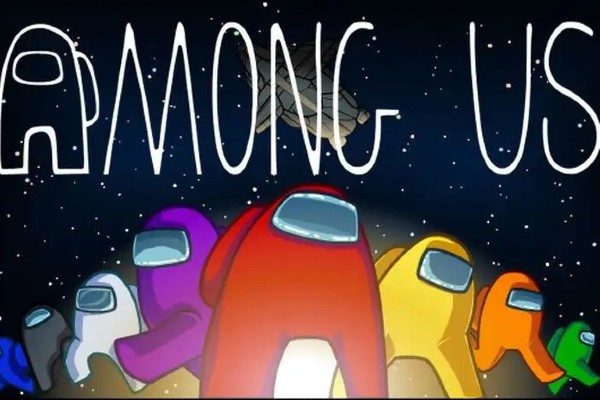
The font that looks most like the logo used in the Among Us game, is a typeface by the name In Your Face, Joffrey!.
Just like the game show itself, this font is quirky and irregularly drawn to mimic the official logo used in the game.
Another option that you could use (which is also free to download) is a replica TTF font that goes by the name of Impostograph Regular. Both of these are very close replicas to the original used, so I'm pretty sure that they are going to do the job. Give them a go in the Among Us font generator below, so that you can test them first. If you like them, you can then go ahead and download them for free.